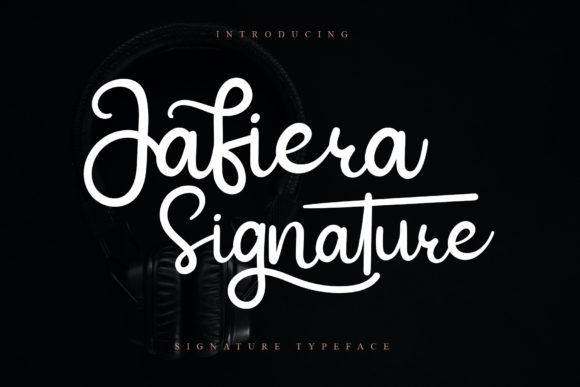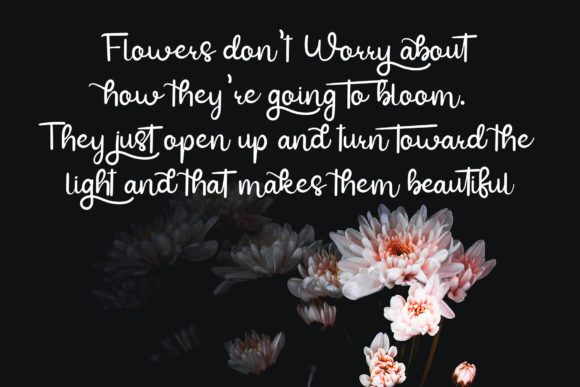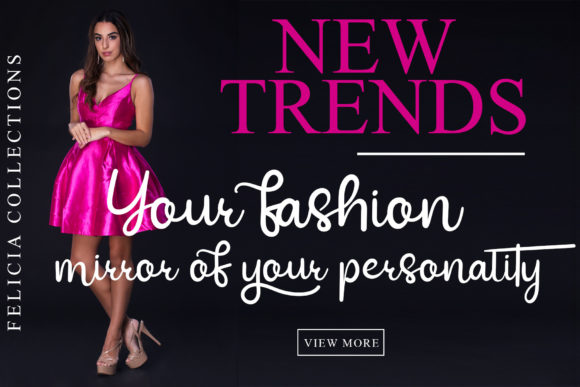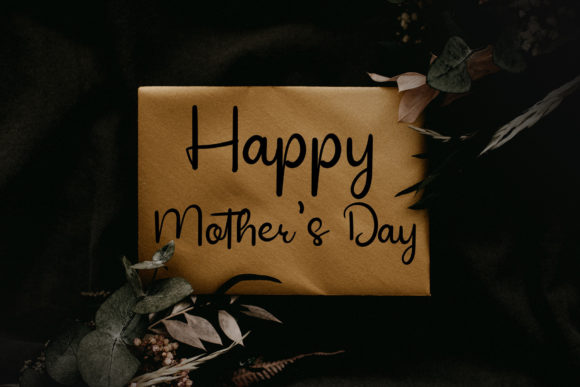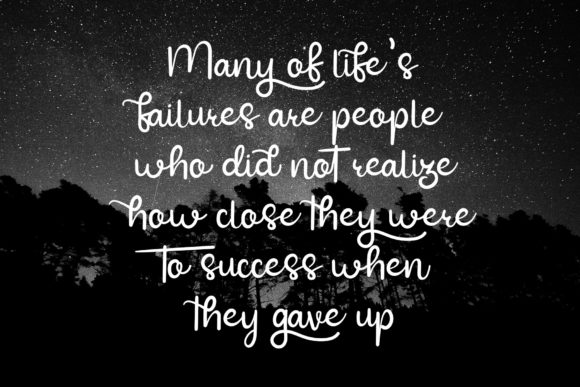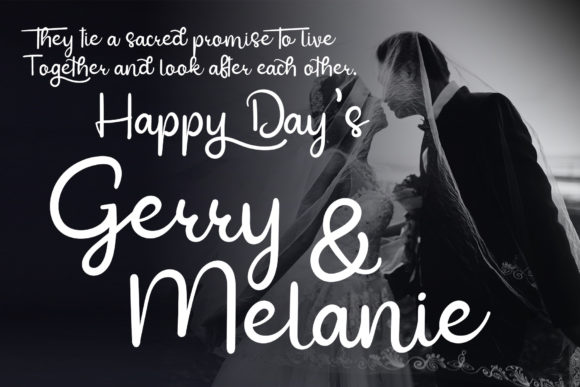
Jafiera Signature Font
About Jafiera Signature Font
Jafiera Signature is a flowing, refined script font that emanates sophistication and elegance. Its stylish alternates and ligatures make this font the perfect match for any project.